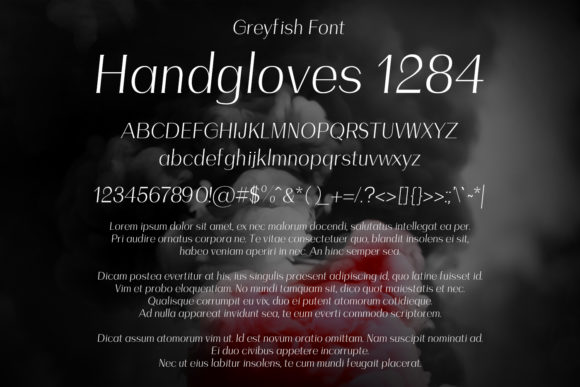
Introducing Greyfish Font: The Ultimate Sans Serif for Modern Designs
Are you tired of using the same old fonts in your designs? Look no further than Greyfish Font, a minimal and neat sans serif font that’s perfect for adding a touch of modernity to your creative projects. With its clean lines and simple aesthetic, Greyfish Font is incredibly versatile and can be matched with an incredibly large set of projects. In this article, we’ll dive into the world of Greyfish Font and explore how it can elevate your designs and make them stand out.
The Characteristics of Greyfish Font
Greyfish Font is a sans serif font, which means it doesn’t have the small lines or flourishes that are characteristic of serif fonts. This gives it a clean and minimalist look that’s perfect for designs that require a modern and sleek aesthetic. The font has a uniform line width and a subtle rounded edge, which gives it a friendly and approachable feel. Whether you’re designing a logo, a website, or a brochure, Greyfish Font is the perfect choice for adding a touch of sophistication and elegance.
The Benefits of Using Greyfish Font
So, why should you choose Greyfish Font for your next design project? Here are just a few benefits of using this amazing font:
- Versatility: Greyfish Font is incredibly versatile and can be used in a wide range of projects, from logos and branding to websites and marketing materials.
- Readability: The font is highly legible, even at small sizes, making it perfect for body text and captions.
- Uniqueness: While Greyfish Font is a sans serif font, it has a unique and distinctive look that sets it apart from other fonts in the same category.
How to Use Greyfish Font in Your Designs
Using Greyfish Font in your designs is easy. Here are a few tips to get you started:
- Pair it with other fonts: Greyfish Font pairs well with other sans serif fonts, as well as serif fonts with a similar aesthetic.
- Experiment with different sizes: Greyfish Font looks great at a range of sizes, from large headings to small body text.
- Play with color: Greyfish Font looks great in a range of colors, from bold and bright to subtle and muted.
Greyfish Font in the World of Design
Greyfish Font is not just a font, it’s a design tool that can help you create stunning visual effects. It’s perfect for:
- Logos and branding: Greyfish Font is a great choice for logos and branding, as it’s clean, modern, and highly legible.
- Web design: The font is optimized for web use and can be used to create stunning website designs that are both modern and user-friendly.
- Print design: Greyfish Font is also perfect for print design, including brochures, flyers, and business cards.
In conclusion, Greyfish Font is a minimal and neat sans serif font that’s perfect for adding a touch of modernity to your designs. With its clean lines, simple aesthetic, and high legibility, it’s the perfect choice for a wide range of projects. Whether you’re a designer, crafter, or DIY enthusiast, Greyfish Font is a great addition to your design toolkit. So why not give it a try and see how it can elevate your designs and make them stand out?
So, add Greyfish Font to your creative ideas and notice how it makes them stand out! With its modern aesthetic and high legibility, it’s the perfect choice for designers and crafters who want to create stunning visual effects.